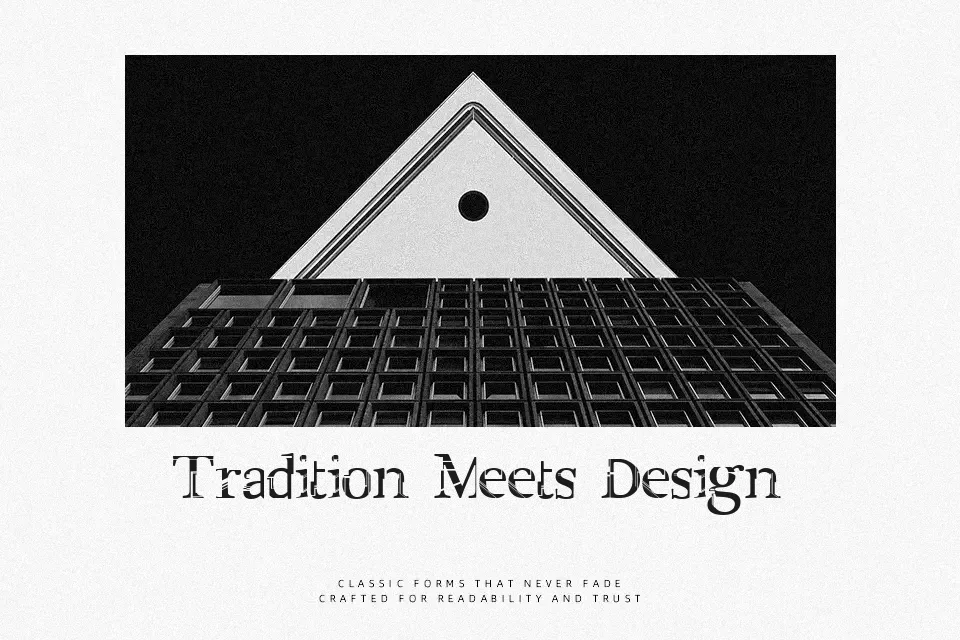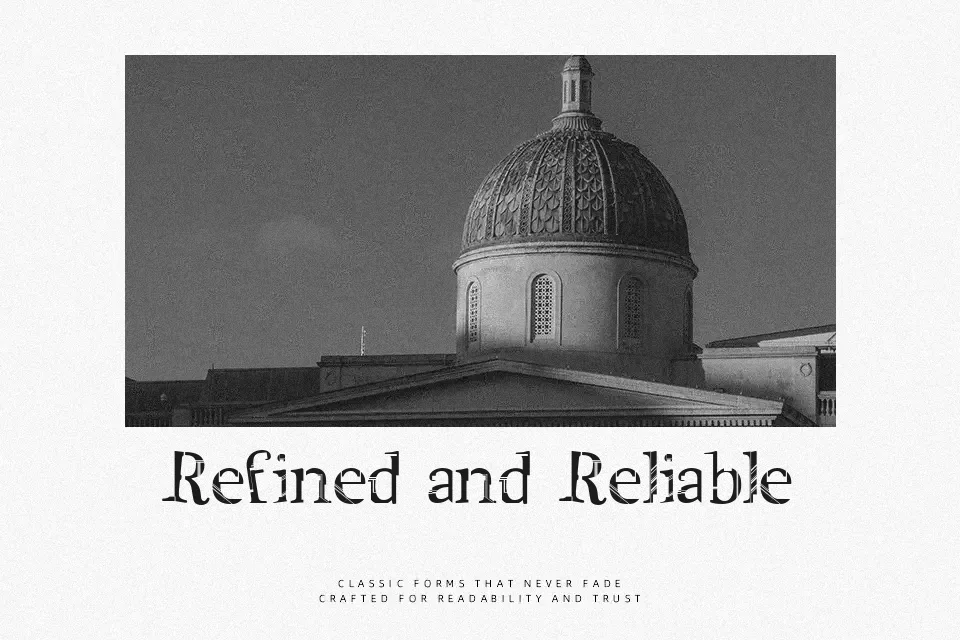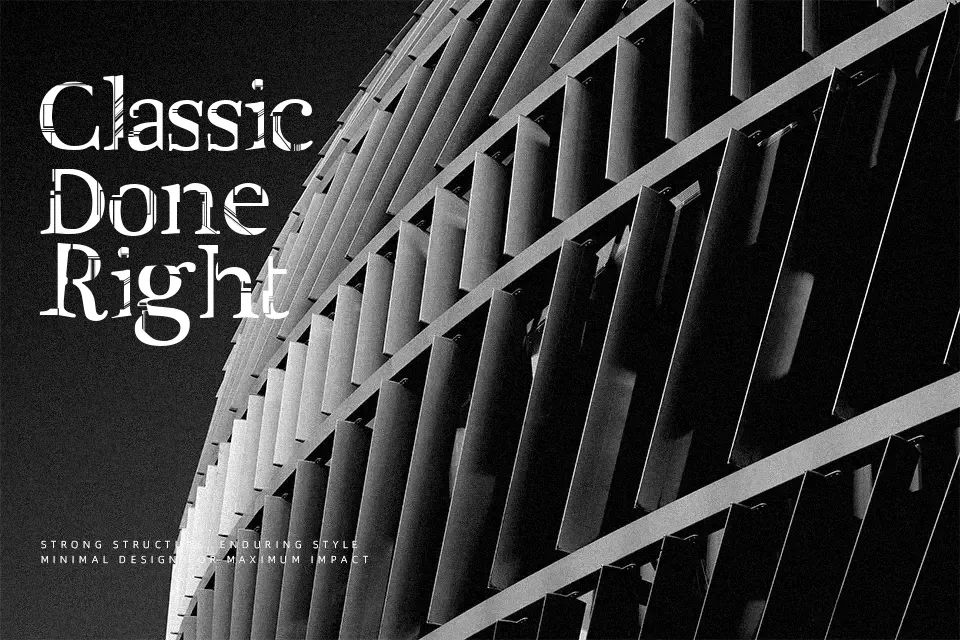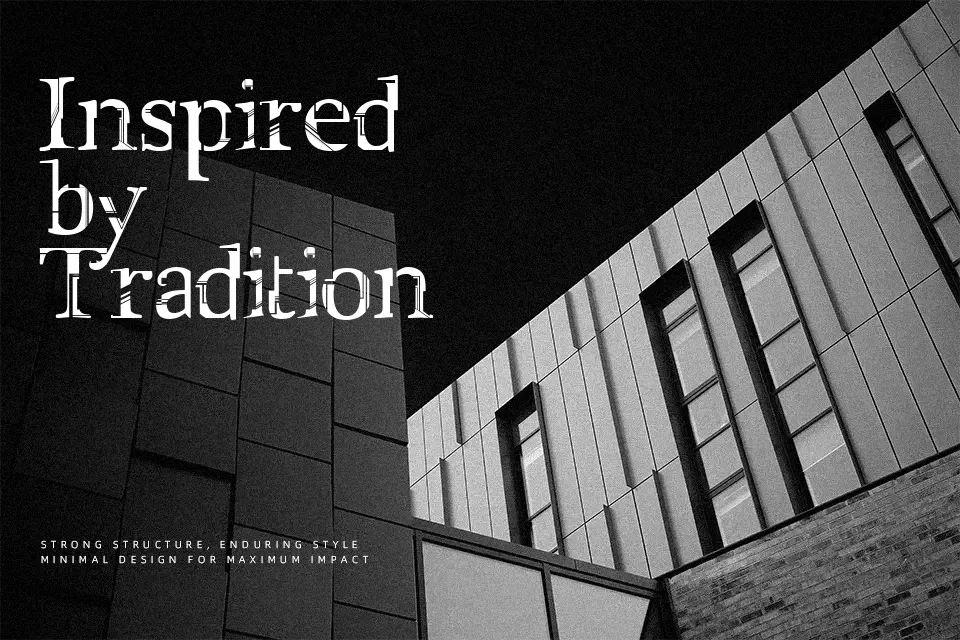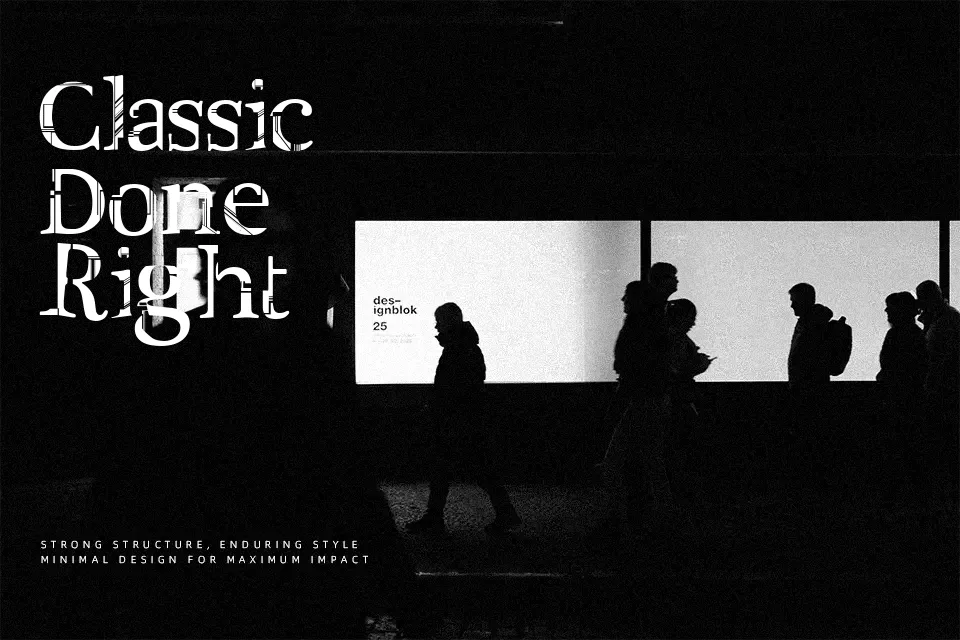
City Life Font
Designed by Janice Faucher
City Life Font presents a distressed display serif construction characterized by fractured letterforms, eroded internal counters, and irregular horizontal weathering along the strokes. Built on a traditional serif skeleton with moderate contrast, the typeface features balanced proportions that preserve overall character silhouettes despite the heavy textural degradation. Spacing is comfortably proportioned for headline display, allowing individual glyphs to stand out in apparel prints, urban signage, and grunge-themed editorial spreads. However, the intricate distressing causes small captions and dense paragraphs to become illegible. The bold shapes maintain commanding visual presence across oversized poster headers where the raw distressed texture truly excels.
streetwear apparel graphics,underground event posters,grunge album covers,urban display signage
continuous body text,mobile app interfaces,corporate documentation,dense data tables
Perfect for headline, music, and packaging, with a dark and decorative style.